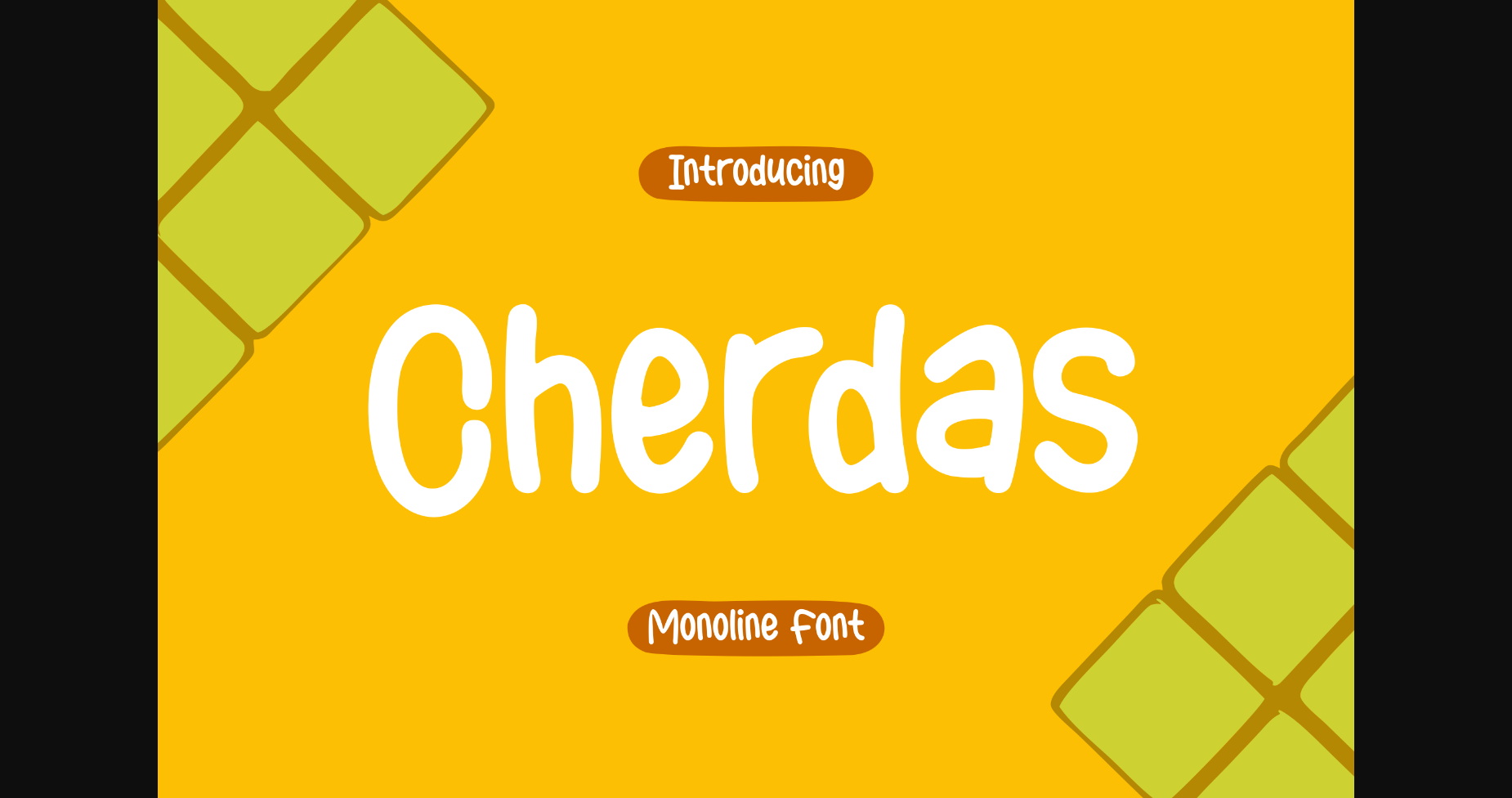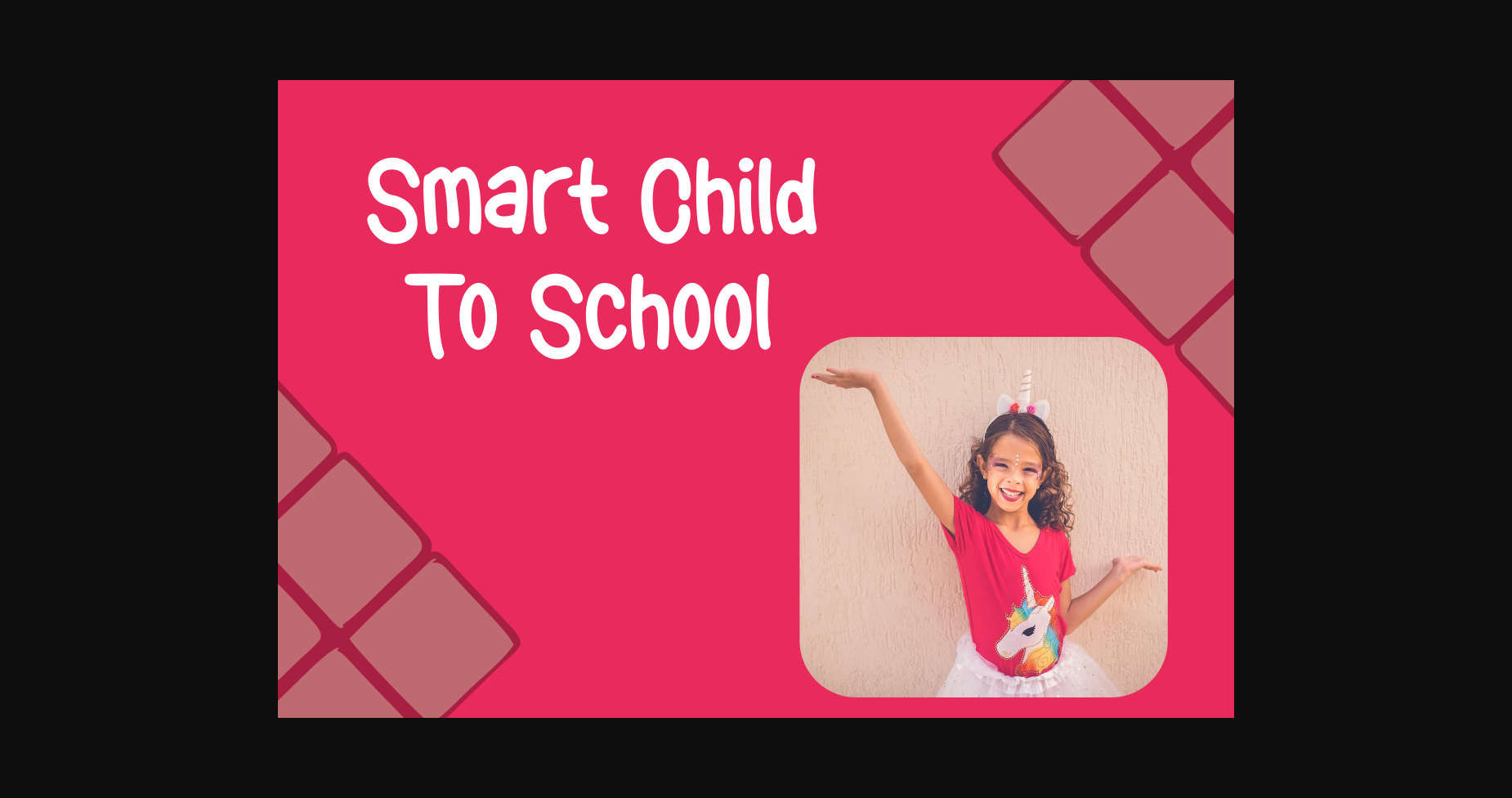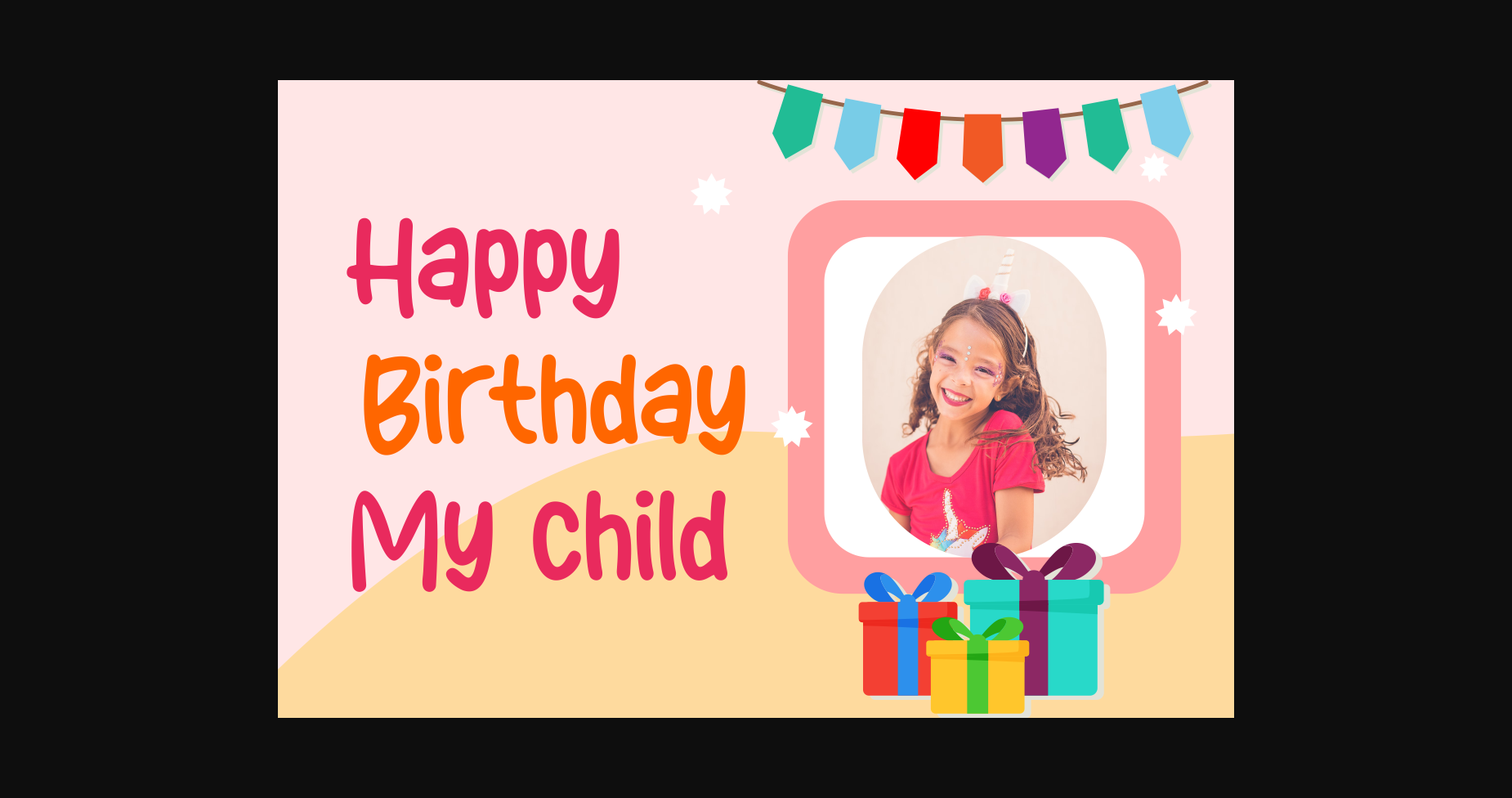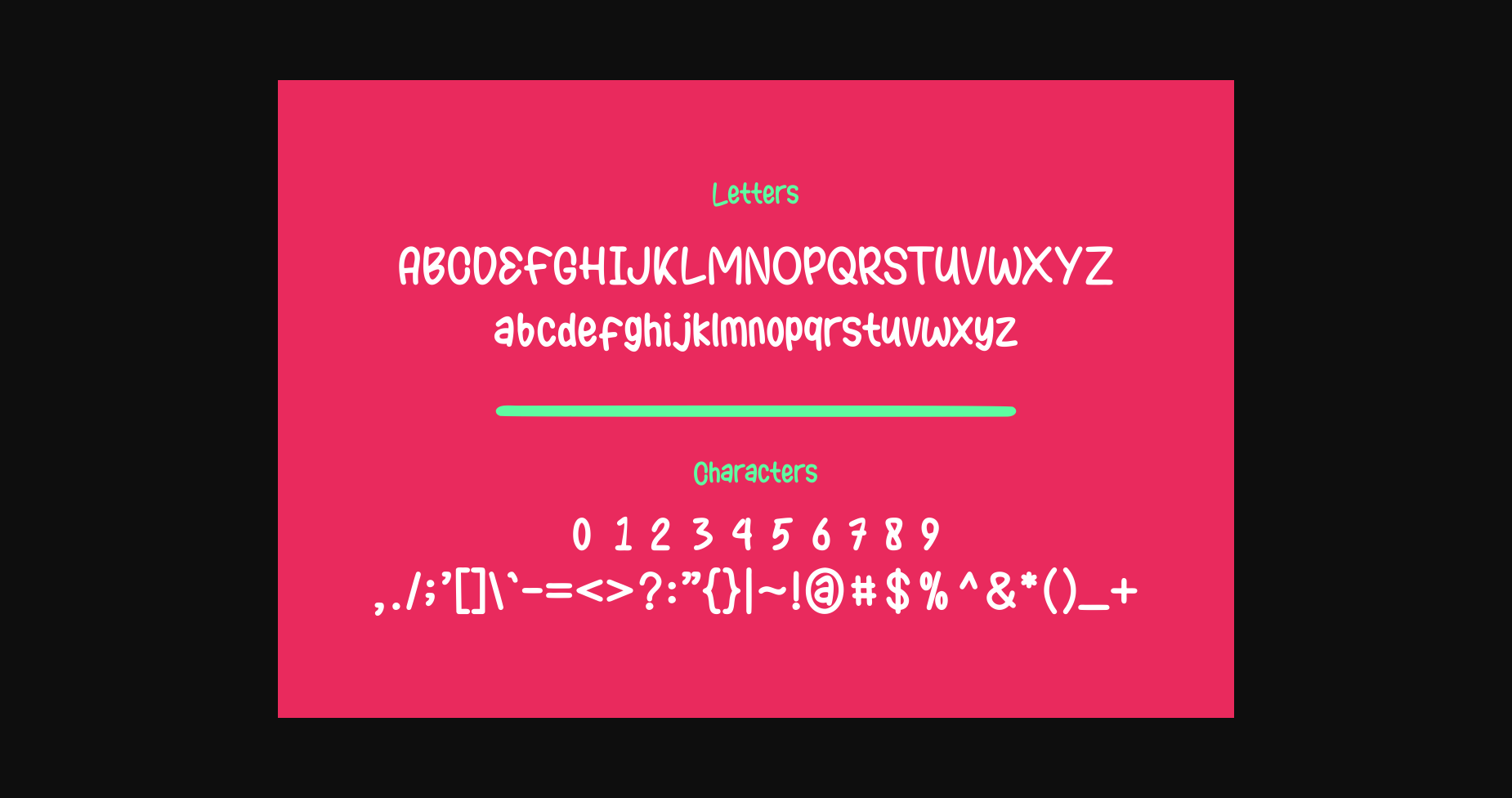
About Cherdas Font
Cherdas is a lovely and timeless handwritten font. It is the best choice for creating eye catching logos, branding and quotes. Every letter has a unique and beautiful touch, which will make your design come alive